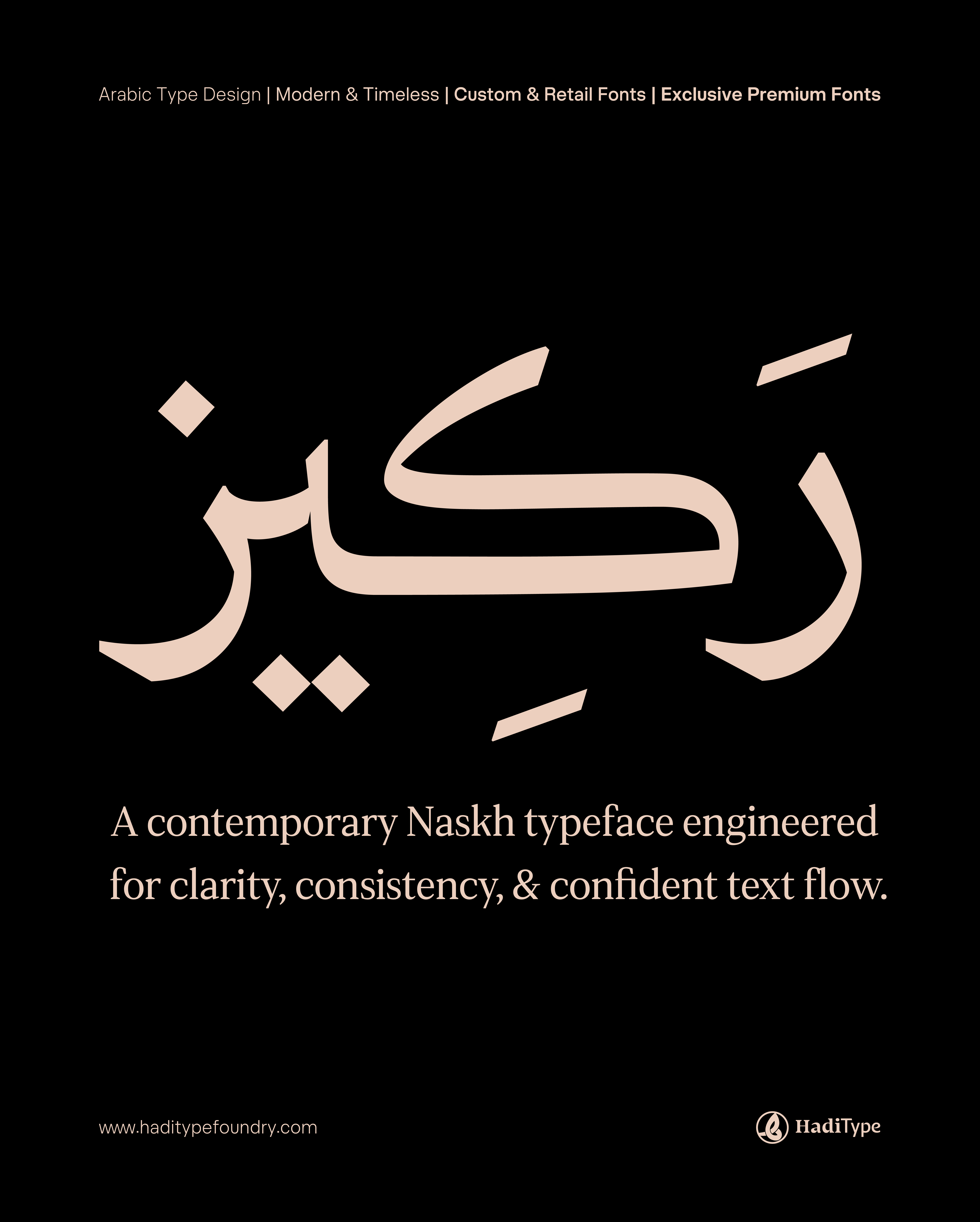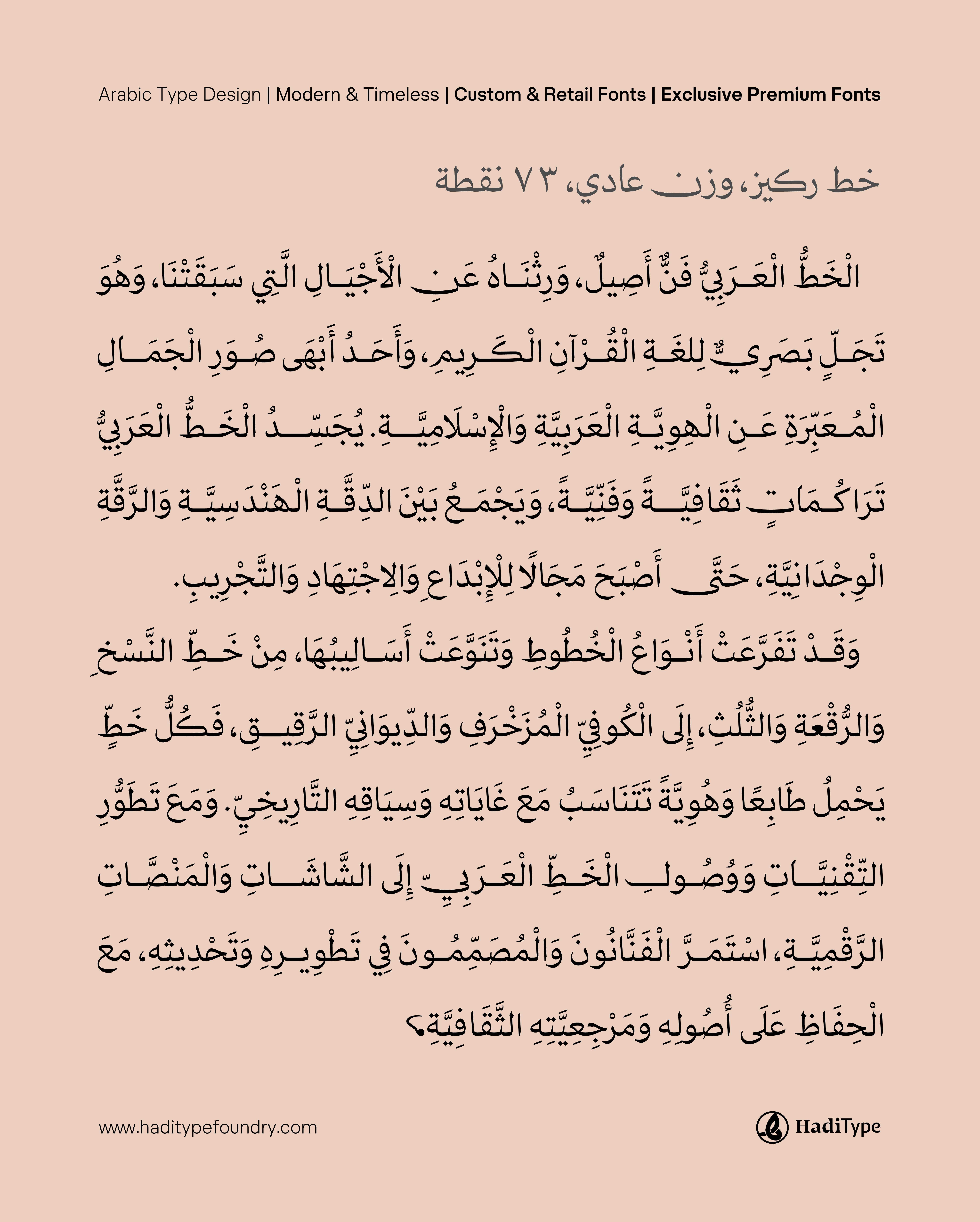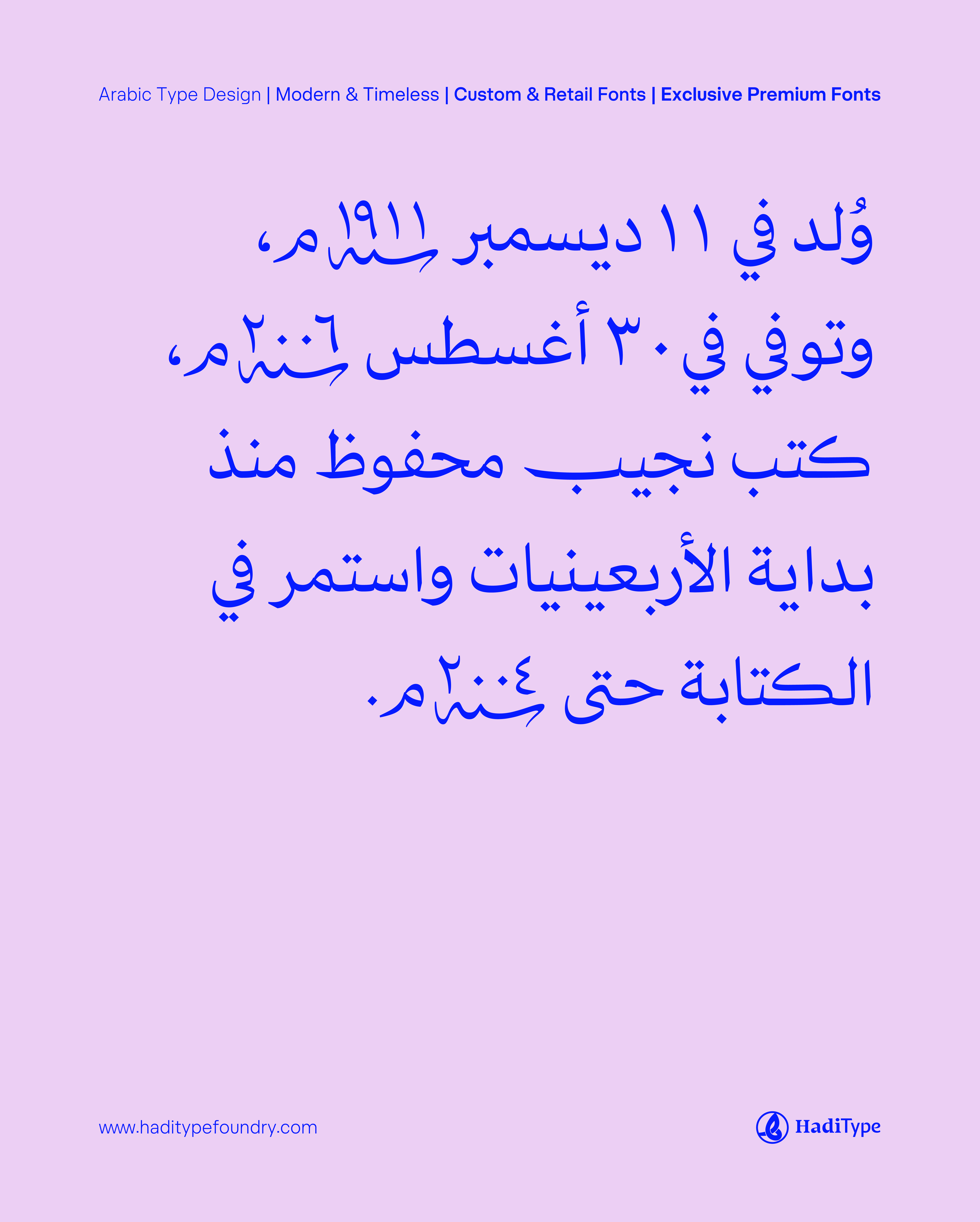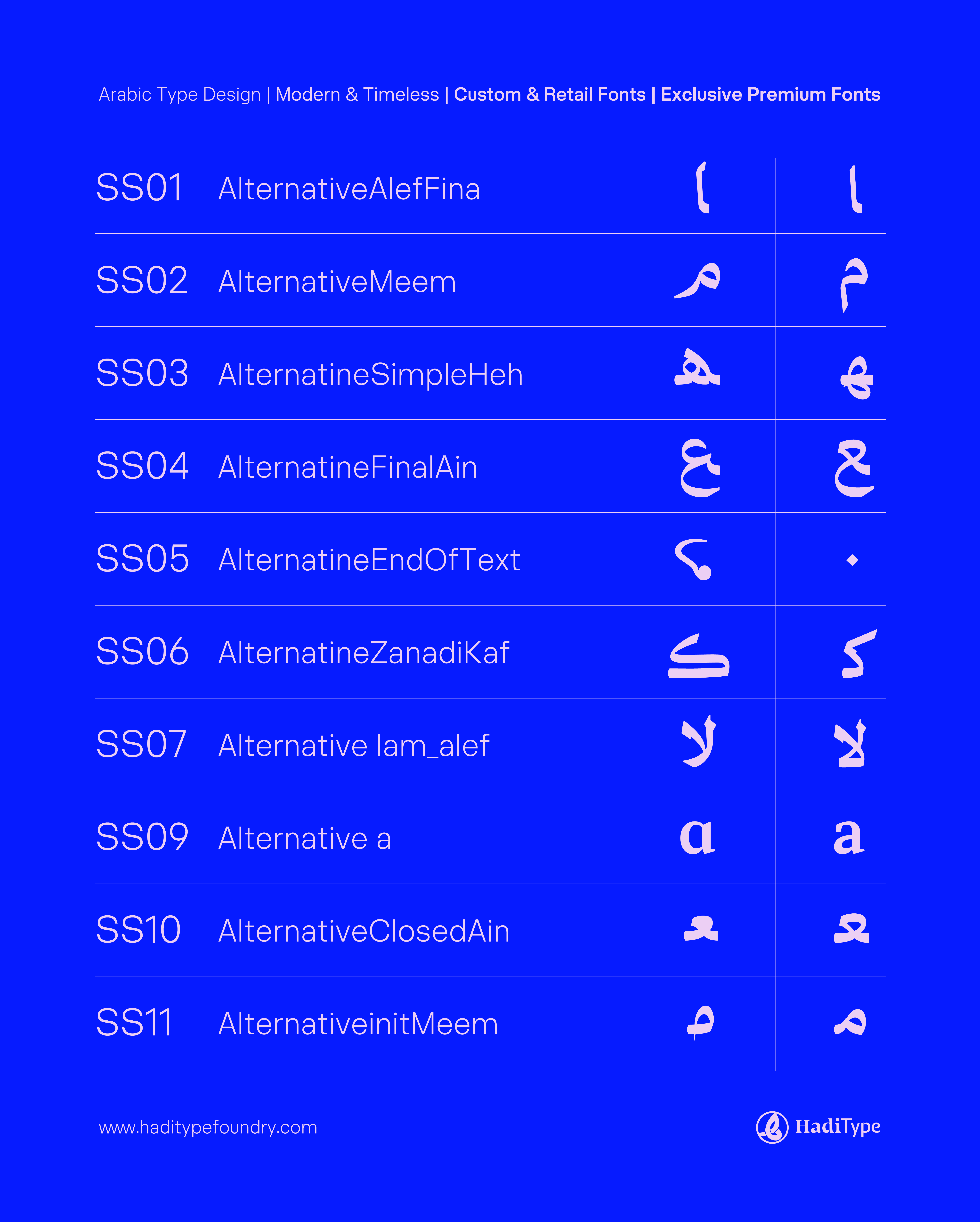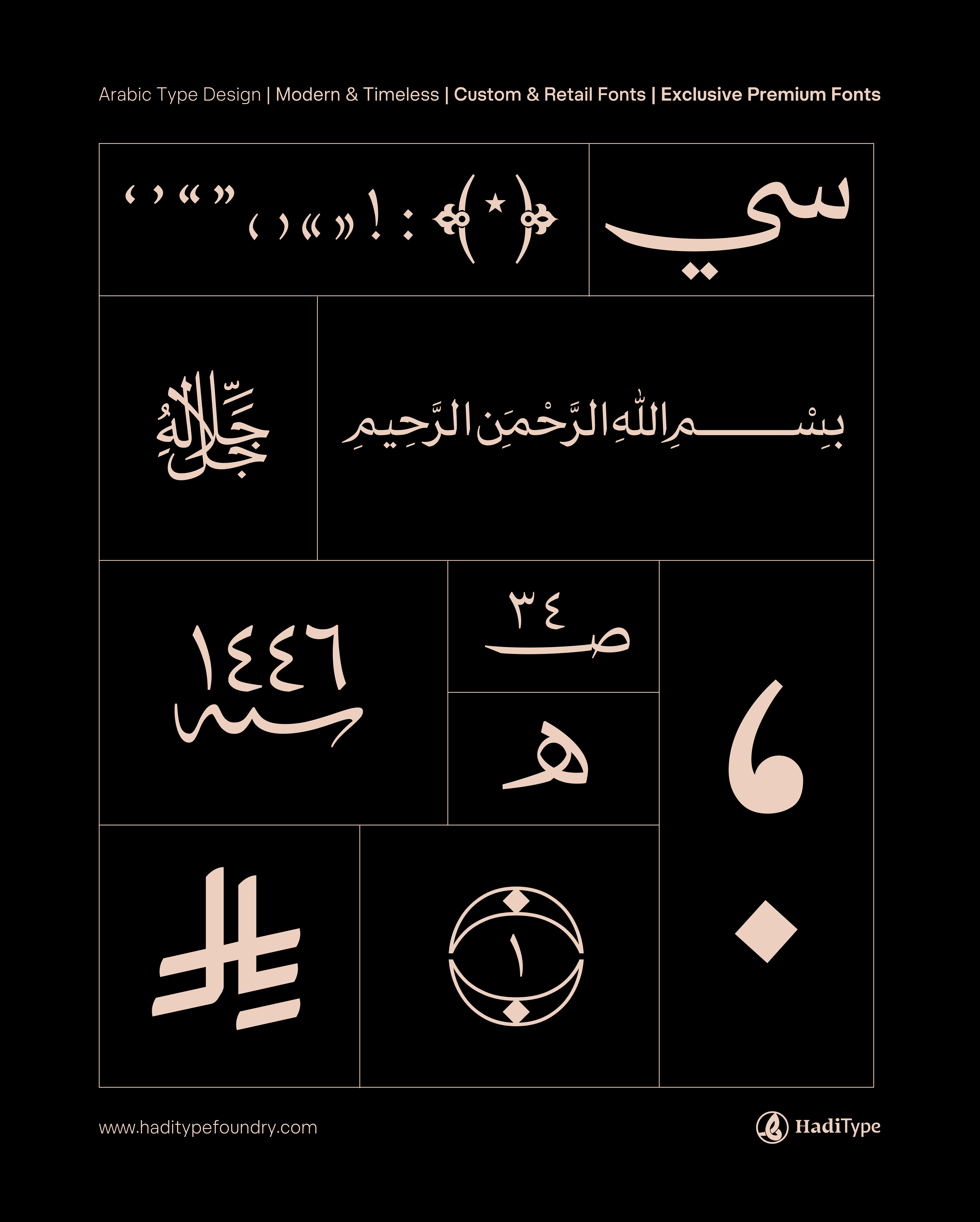
HT Rakeez
HT Rakeez — a contemporary Naskh typeface engineered for clarity, consistency, and confident text flow.
Designed by @mohammed_abdelhadi and released by @haditype_foundry, HT Rakeez is a modern interpretation of classical Naskh. It features sharp angular cuts, refined zulf terminals, and a robust 8-weight family tailored for editorial and interface applications.
The name Rakeez (رَكِيز) reflects the typeface’s core values: functionality, structure, and precision. It is built to support seamless reading while maintaining visual strength and rhythm.
HT Rakeez is also optimized for Arabic-centric multilingual design systems, offering balanced proportions and strong stylistic cohesion across weights and sizes.